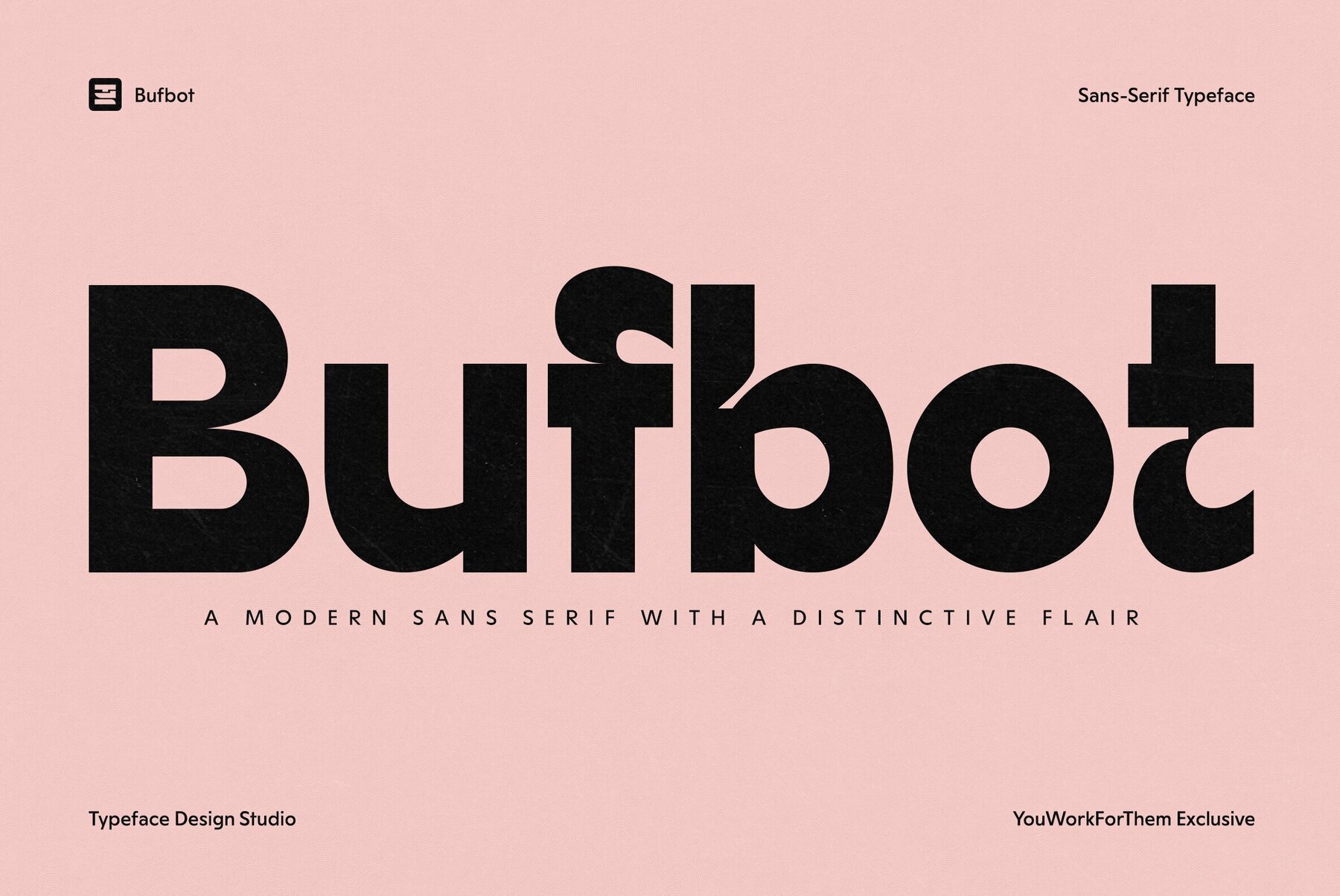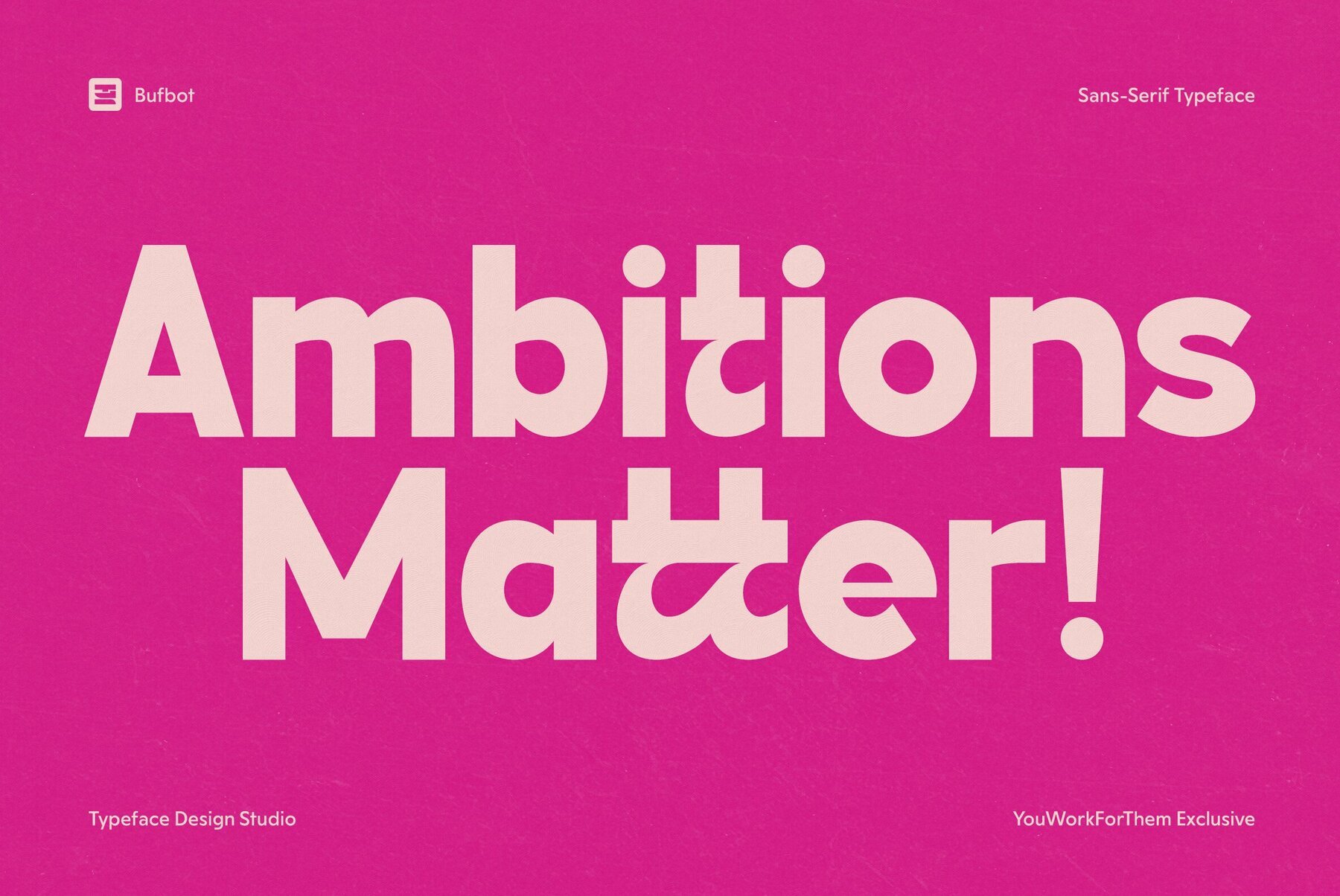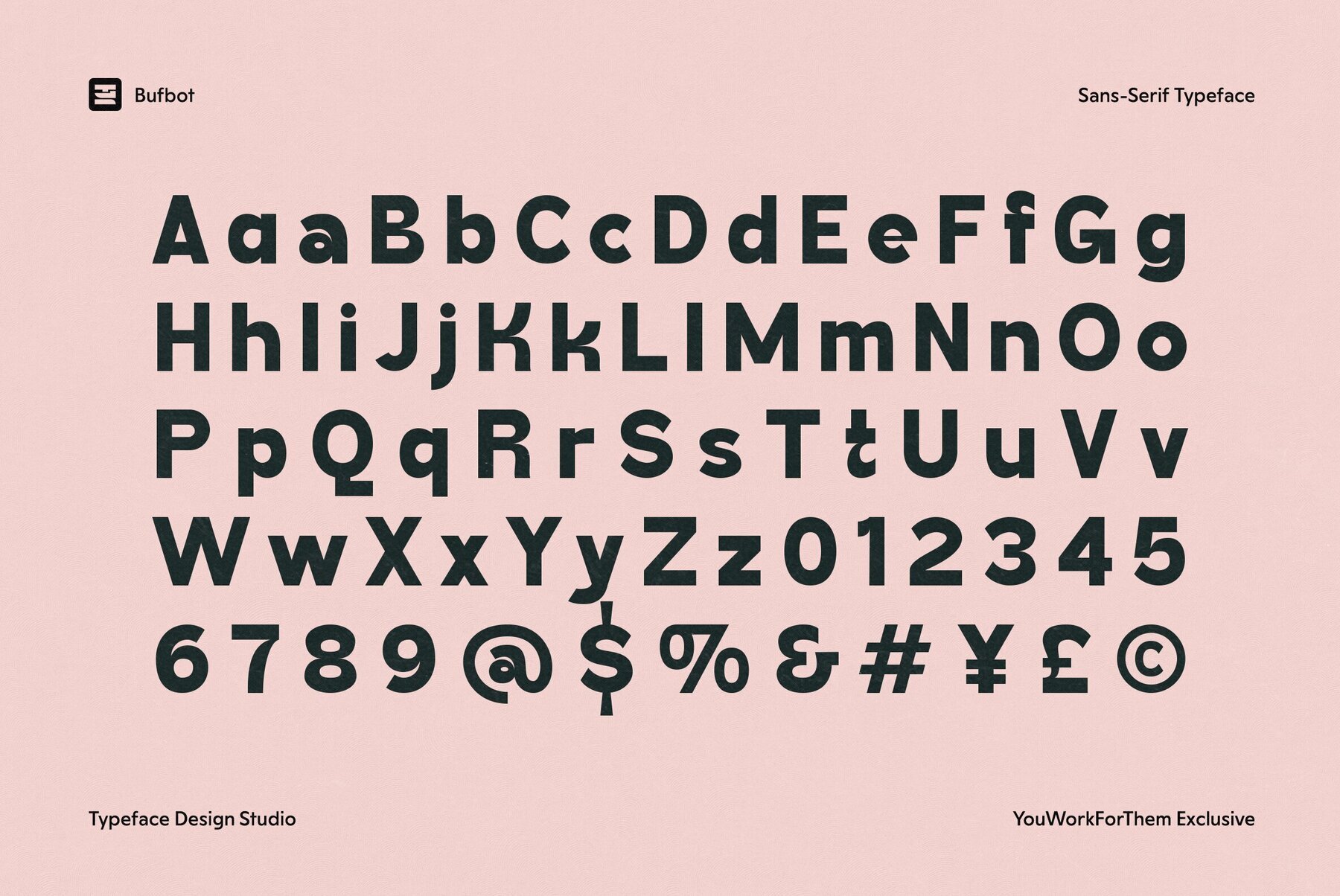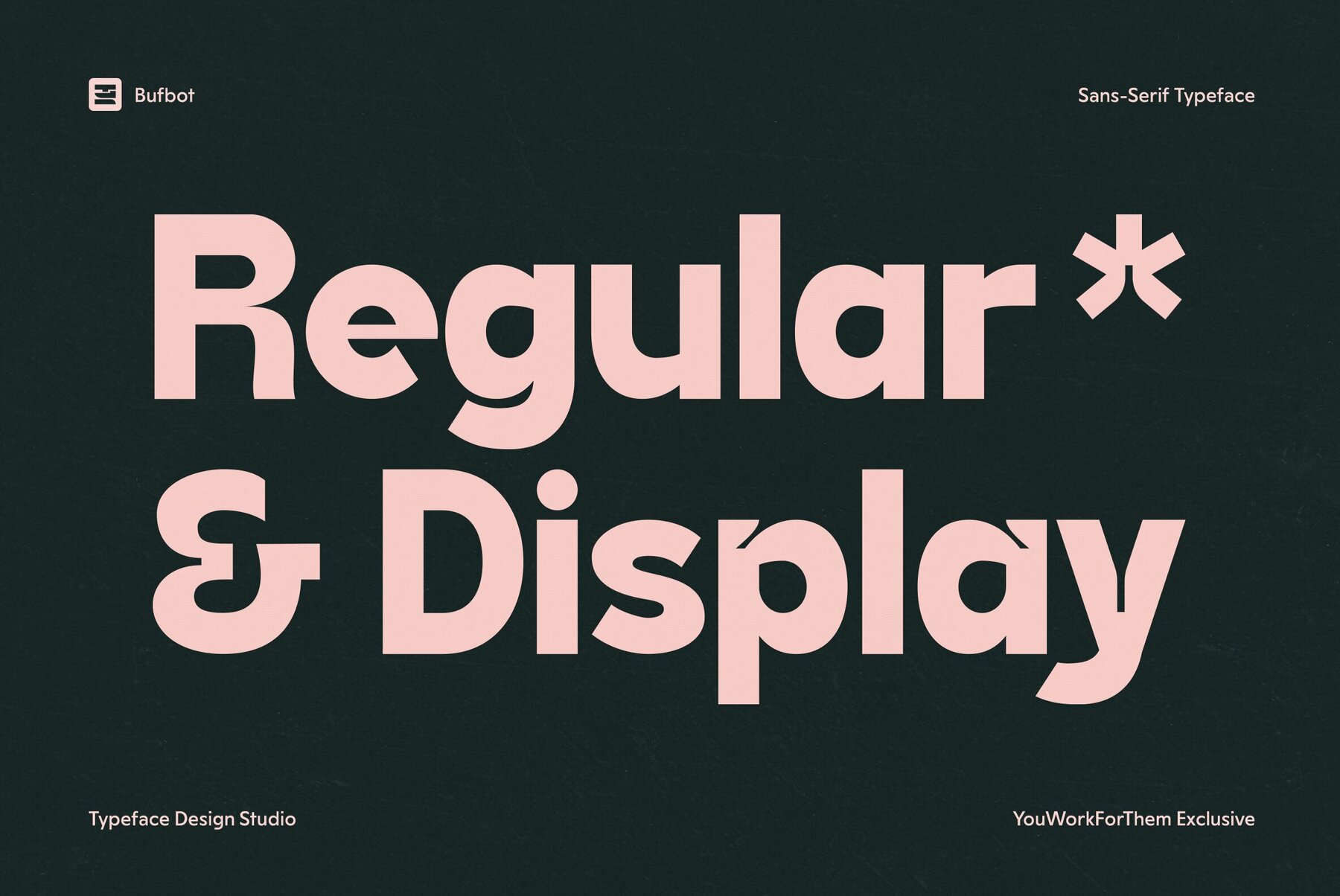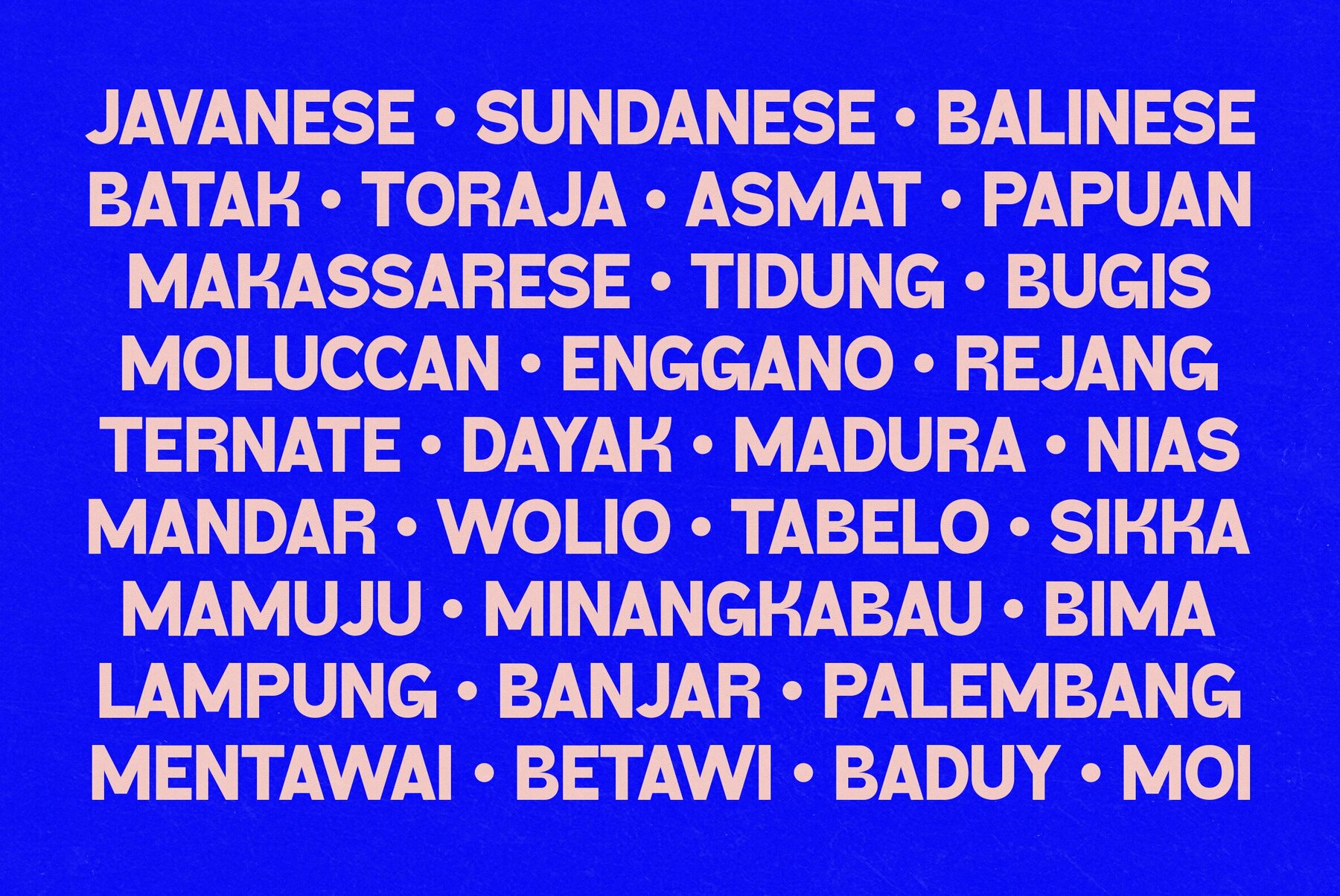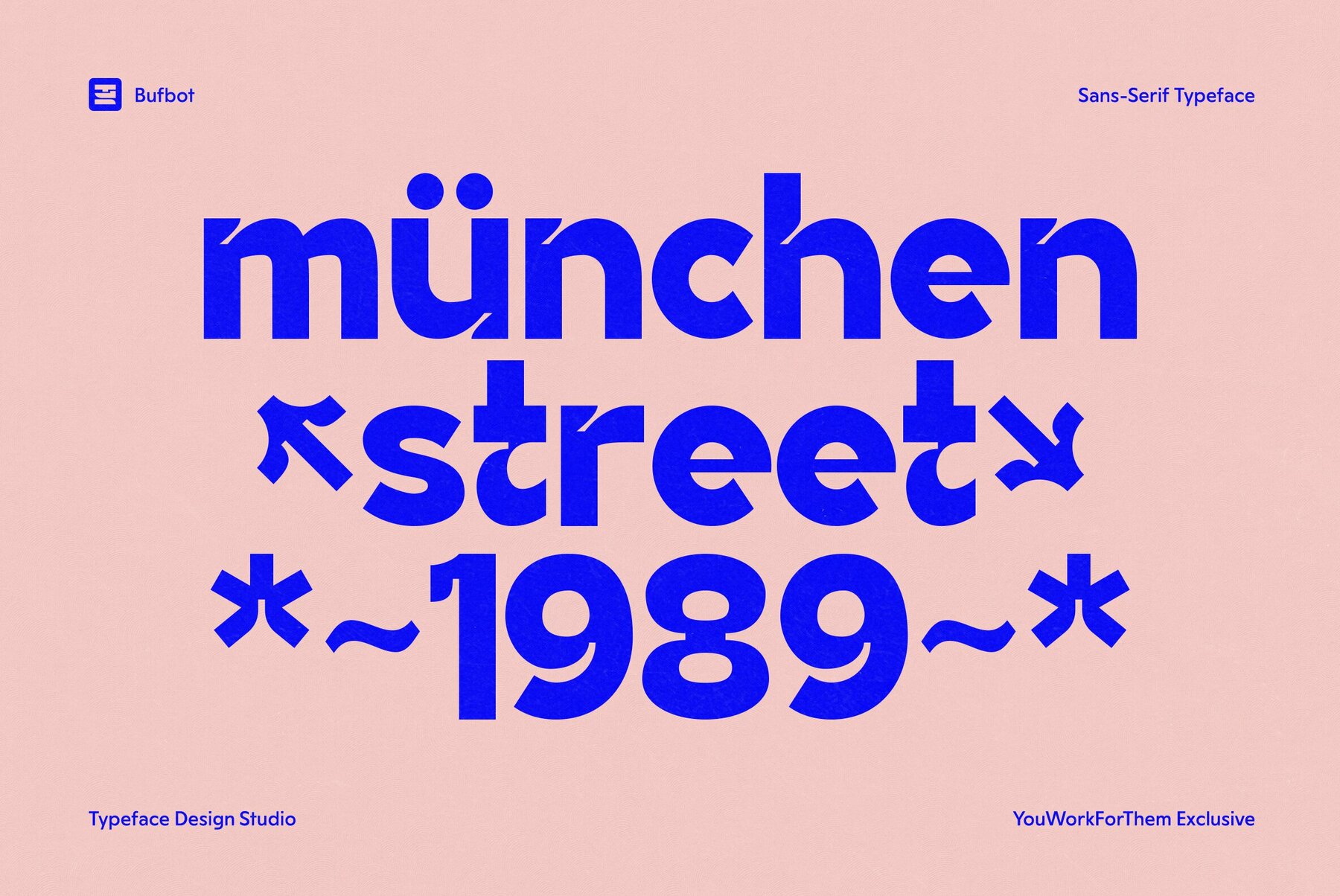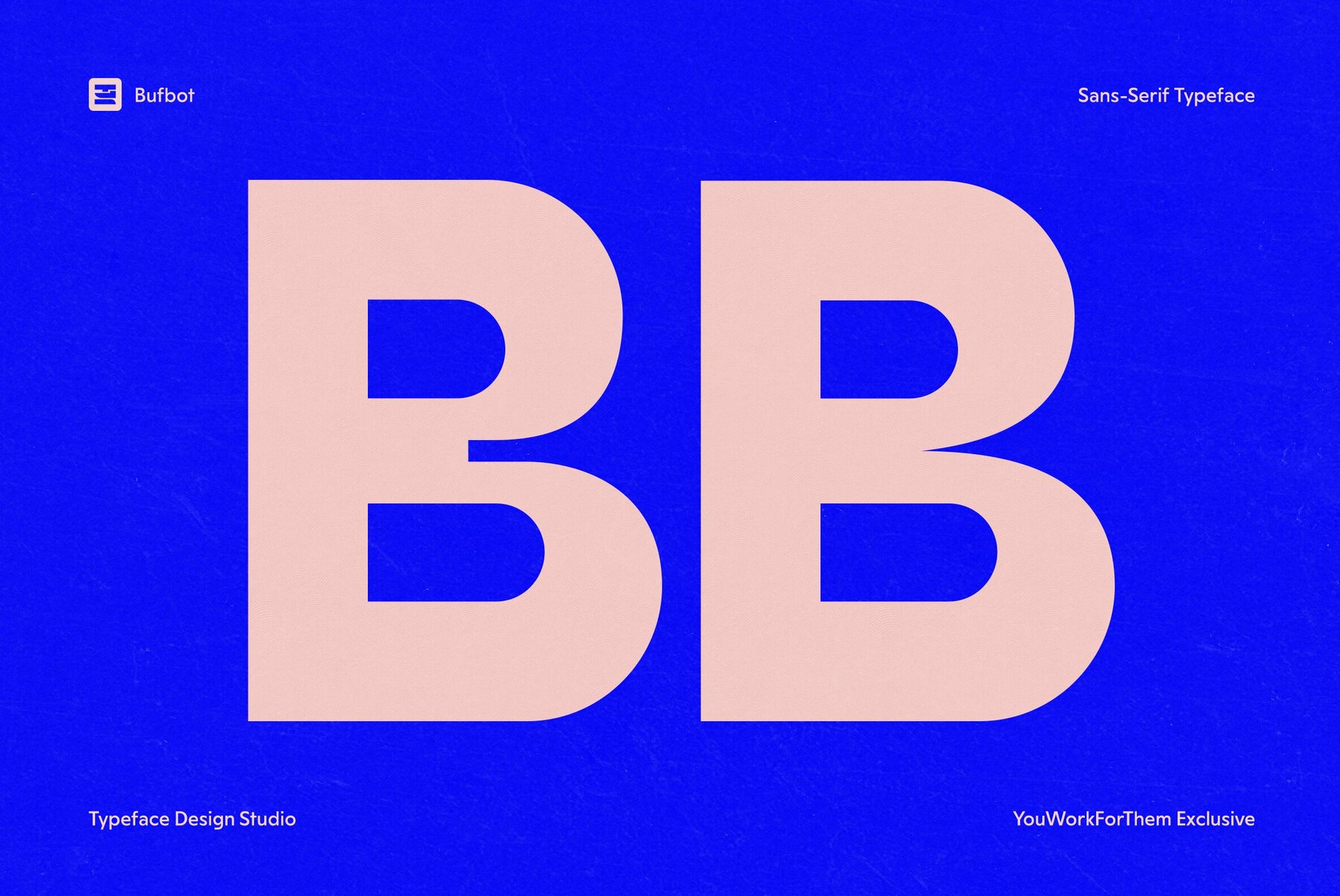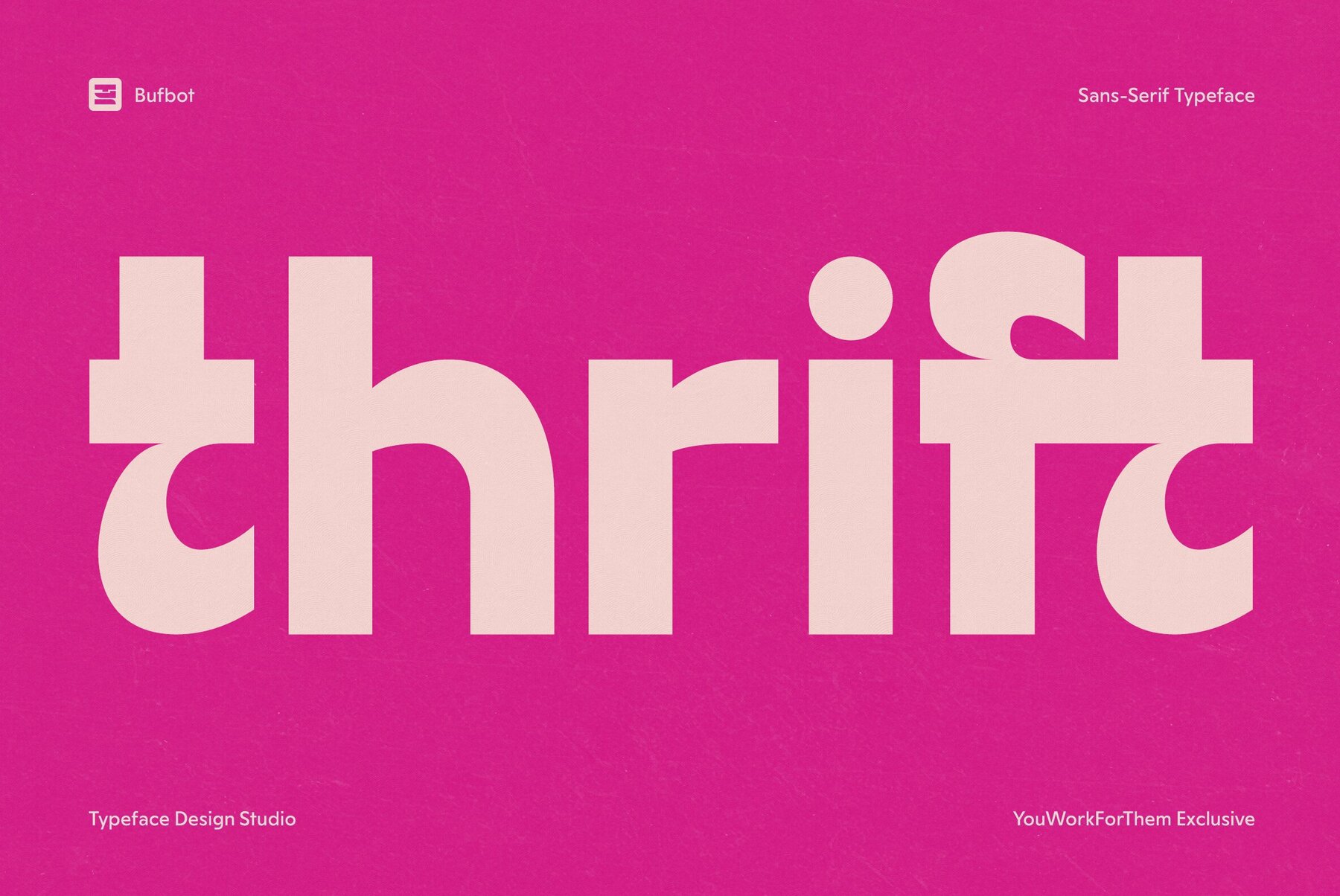
Bufbot Font
Bufbot is a bold, contemporary sans serif font designed to capture attention while ensuring clarity. It elegantly combines a clean, structured form with a unique display character, making it a versatile choice for diverse design projects. Its rounded and geometric construction delivers an engaging futuristic appeal, perfect for branding, editorial headlines, posters, and digital design projects.Bufbot: A Modern Sans Serif with Distinctive Flair
The Bufbot Typeface serves as a bold design statement, ideal for modern visual communication.